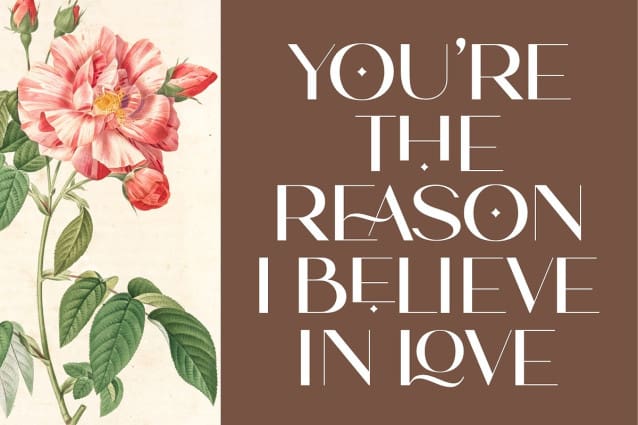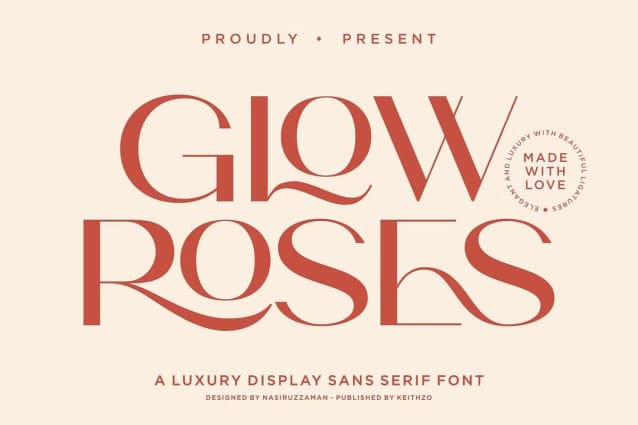
Glow Roses Font
Glow Roses Font, Elevate your project with an attractive and elegant sans serif font. Glow Roses sophisticated and refined curves exude a sense of luxury and professionalism, making it the perfect choice for any high-end design. Don’t miss out on this must-have font for your next project that needs a touch of class. This font is PUA encoded which means you can access all of the amazing glyphs and ligatures with ease!